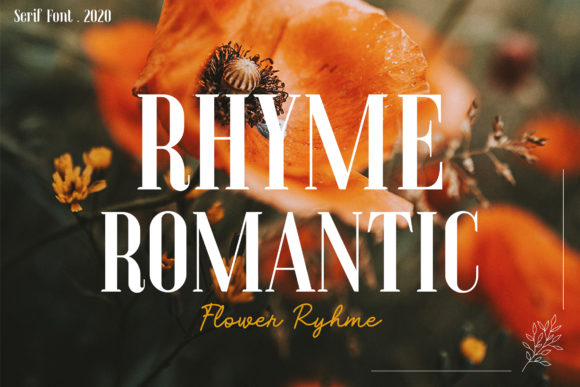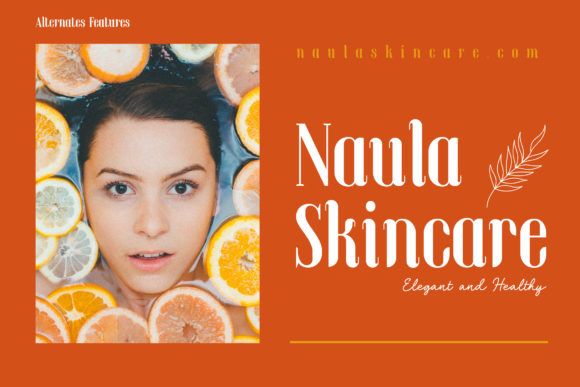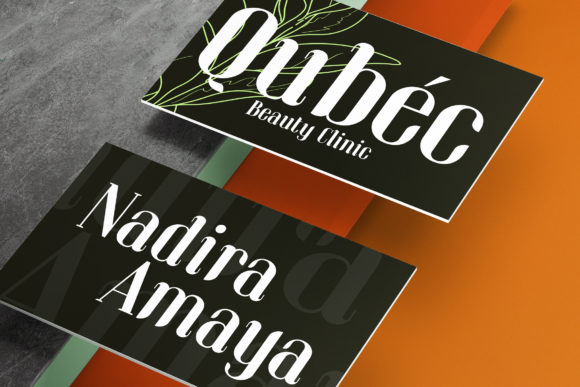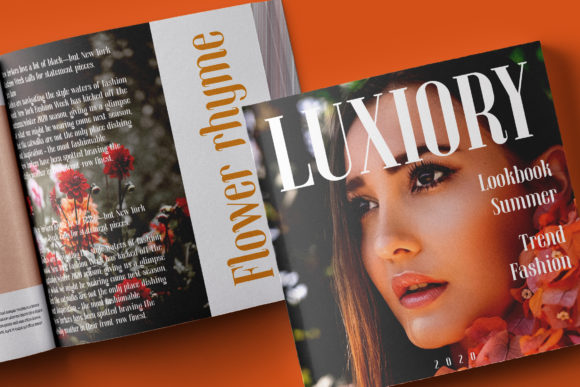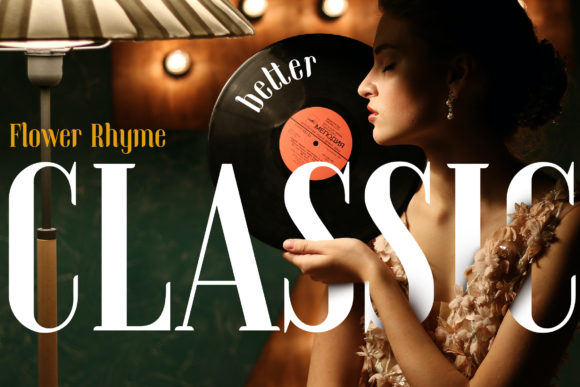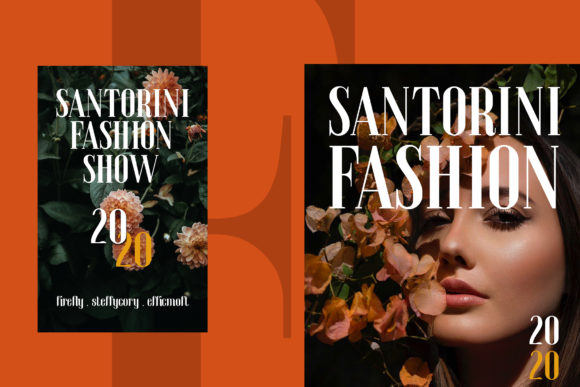
Introducing Flower Rhyme Font: Elevate Your Designs with Elegance
Are you searching for a font that adds a touch of sophistication and luxury to your designs? Look no further than Flower Rhyme Font, a unique serif font that is perfect for a wide range of projects. From luxury logos and branding to editorial design, fashion promotions, and more, Flower Rhyme Font is the ideal choice for designers and crafters seeking to elevate their work.
What is Flower Rhyme Font?
Flower Rhyme Font is a distinctive serif font that boasts a classic, yet modern aesthetic. Its unique design elements make it stand out from more traditional fonts, offering a fresh and elegant look that is sure to capture attention. The font’s serifs are carefully crafted to provide a sense of refinement and luxury, making it an excellent choice for high-end designs.
Perfect for Luxury Projects
When it comes to luxury branding, logos, and promotional materials, the font used can make all the difference. Flower Rhyme Font is specifically designed to convey a sense of elegance and sophistication, making it perfect for:
- Luxury logos and branding
- Classy editorial design and magazines
- Fashion promotional materials and boutique branding
- Stationery design and high-end business cards
- Blog design and modern advertising
One of the key benefits of Flower Rhyme Font is its versatility. This font can be used across a wide range of projects, including:
- Card invitations and event branding
- Art quotes and home decor
- Book and cover titles
- Special events and wedding designs
Whether you’re working on a personal project or a client’s, Flower Rhyme Font offers the flexibility to create stunning designs that meet your needs.
Why Choose Flower Rhyme Font?
With so many fonts available, why choose Flower Rhyme Font? Here are just a few reasons why designers and crafters are falling in love with this unique serif font:
- Elegance and sophistication: Flower Rhyme Font exudes luxury and refinement, making it perfect for high-end designs.
- Versatility: Use it across a wide range of projects, from branding and advertising to editorial design and more.
- Unique design elements: The font’s distinctive serifs and modern aesthetic set it apart from more traditional fonts.
- Easy to read: Despite its elegant design, Flower Rhyme Font remains clear and easy to read, making it perfect for body text and headlines.
Tips for Using Flower Rhyme Font
To get the most out of Flower Rhyme Font, here are a few tips to keep in mind:
- Pair it with contrasting fonts: Combine Flower Rhyme Font with a sans-serif font or a script font to create visual interest and hierarchy.
- Experiment with font sizes: Use Flower Rhyme Font in a range of sizes to create emphasis and add depth to your designs.
- Play with color: Take advantage of the font’s elegant design by pairing it with a bold or metallic color scheme.
Flower Rhyme Font is a game-changer for designers and crafters seeking to elevate their work with a touch of elegance and sophistication. Its unique design elements, versatility, and ease of use make it the perfect choice for a wide range of projects. Whether you’re working on a luxury branding campaign, a fashion promotional project, or a personal blog, Flower Rhyme Font is sure to impress.